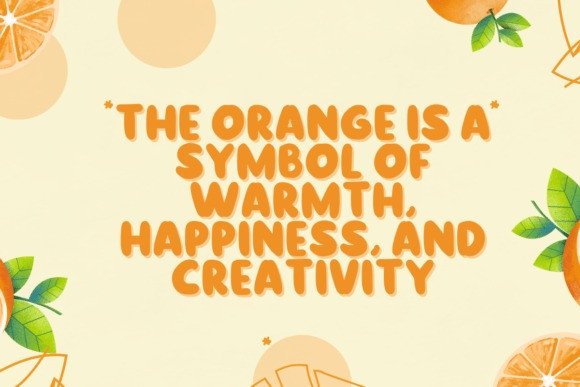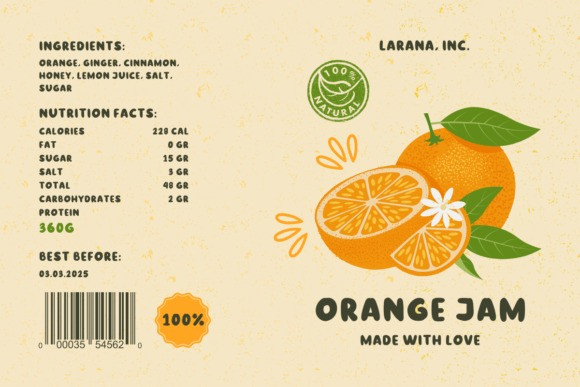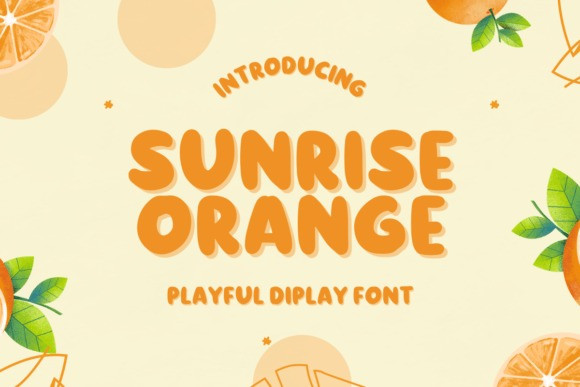
Sunrise Orange Font
Sunrise Orange Display font is a bold and eye-catching typeface that is perfect for creating a powerful and memorable visual impact. Designed with a unique blend of sharp lines and smooth curves, this font is ideal for headlines, titles, logos, and other large-scale design projects that require maximum visibility.
The font’s orange hue is warm, vibrant, and energizing, making it an excellent choice for brands that want to convey a sense of creativity, innovation, and excitement. The font’s bold weight ensures that it stands out, even in crowded or cluttered design environments.
Sunrise Orange Display font is also highly versatile and can be used in a variety of contexts, from print and digital media to advertising and branding campaigns. Its legibility and readability make it easy to read, even at smaller sizes, while its bold and dynamic style ensures that it commands attention.
Overall, if you’re looking for a font that combines boldness, creativity, and legibility, Sunrise Orange Display font is an excellent choice. Its unique style and vibrant color make it a standout choice for any design project that requires impact and attention-grabbing visuals.